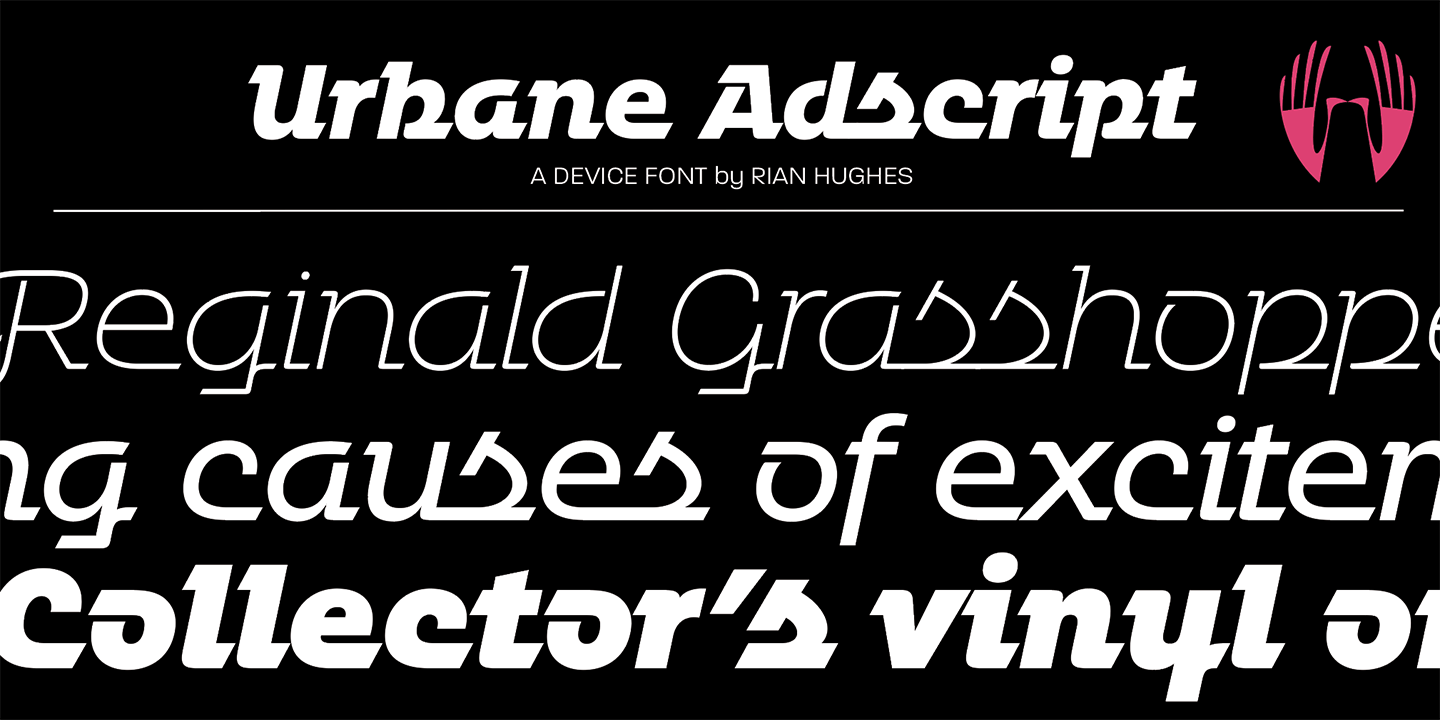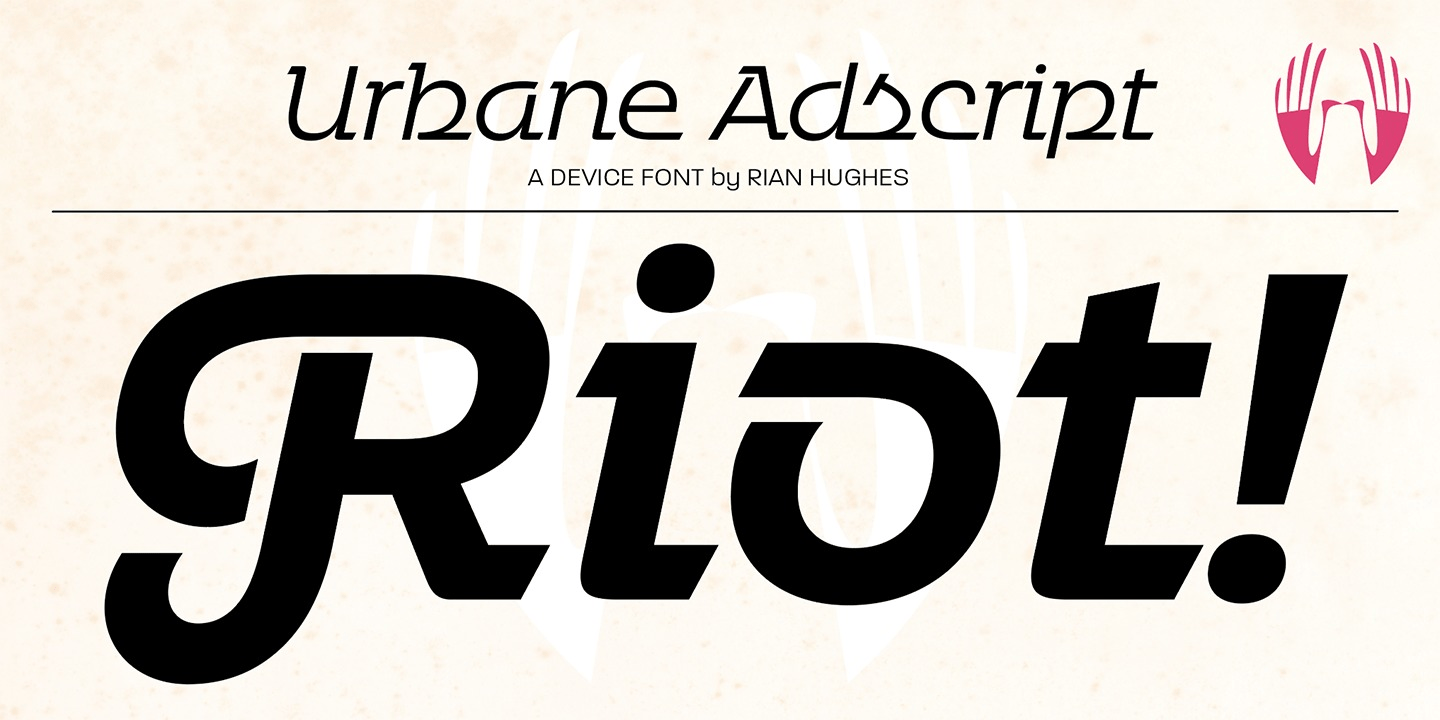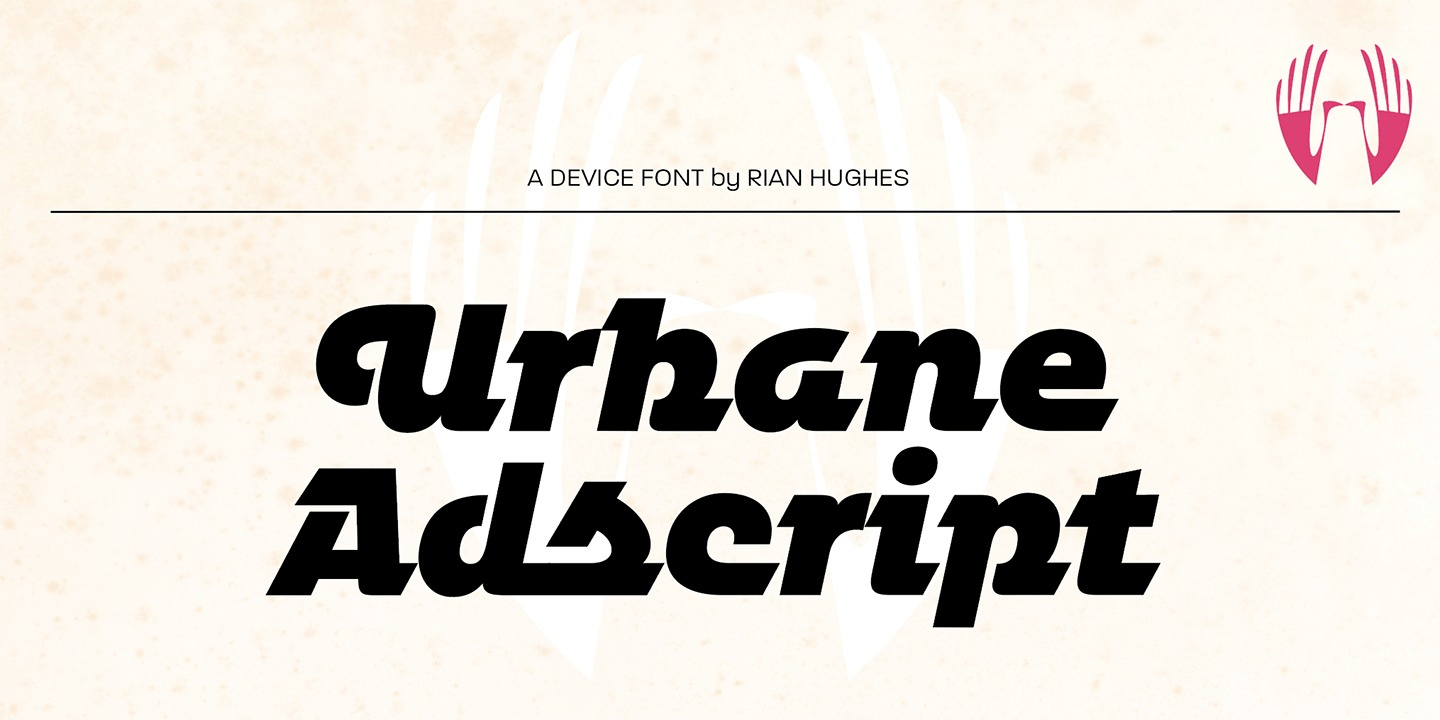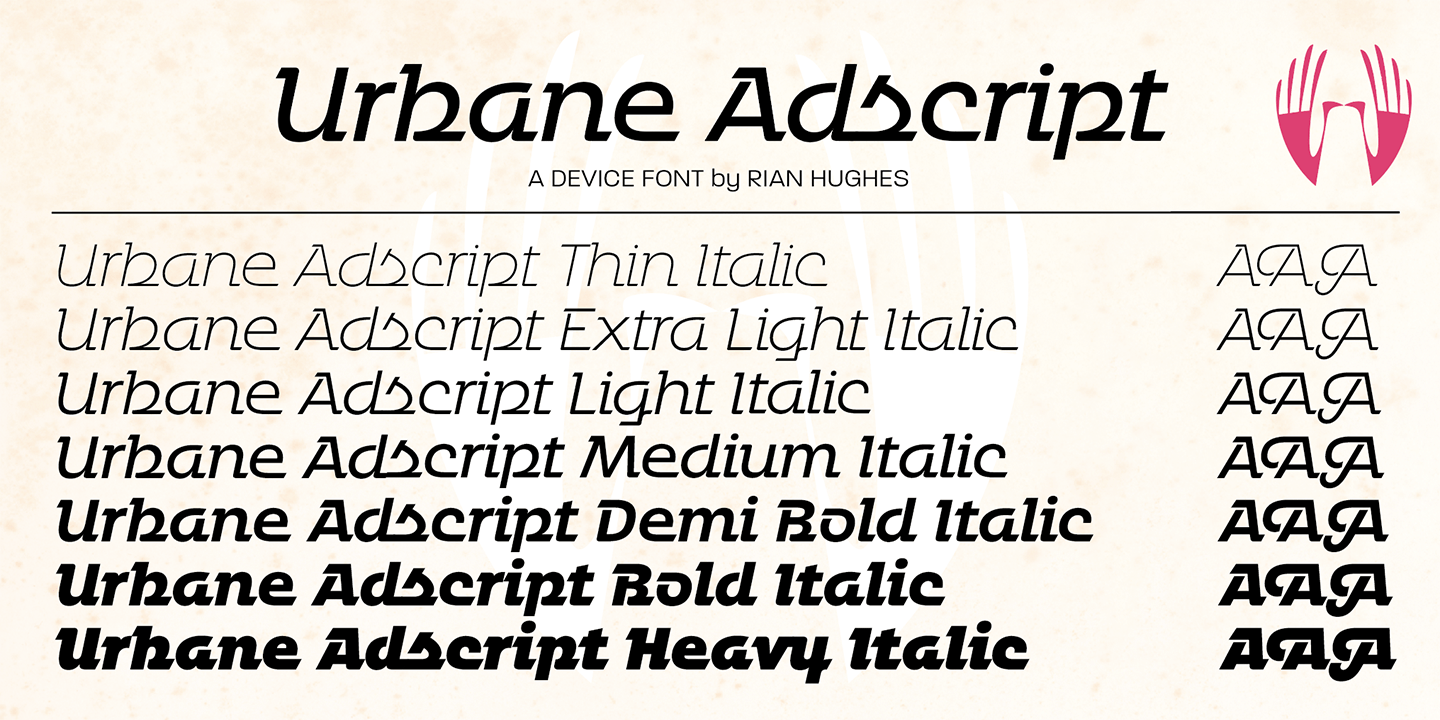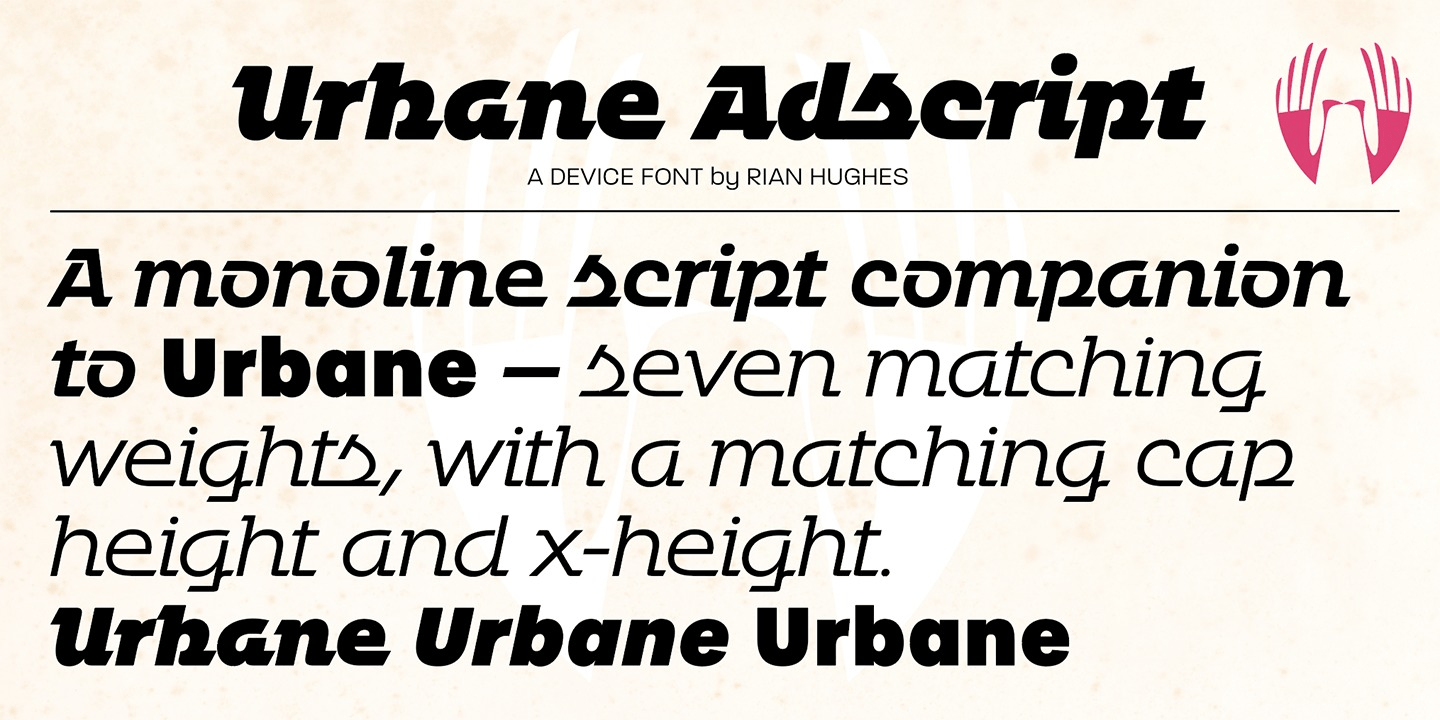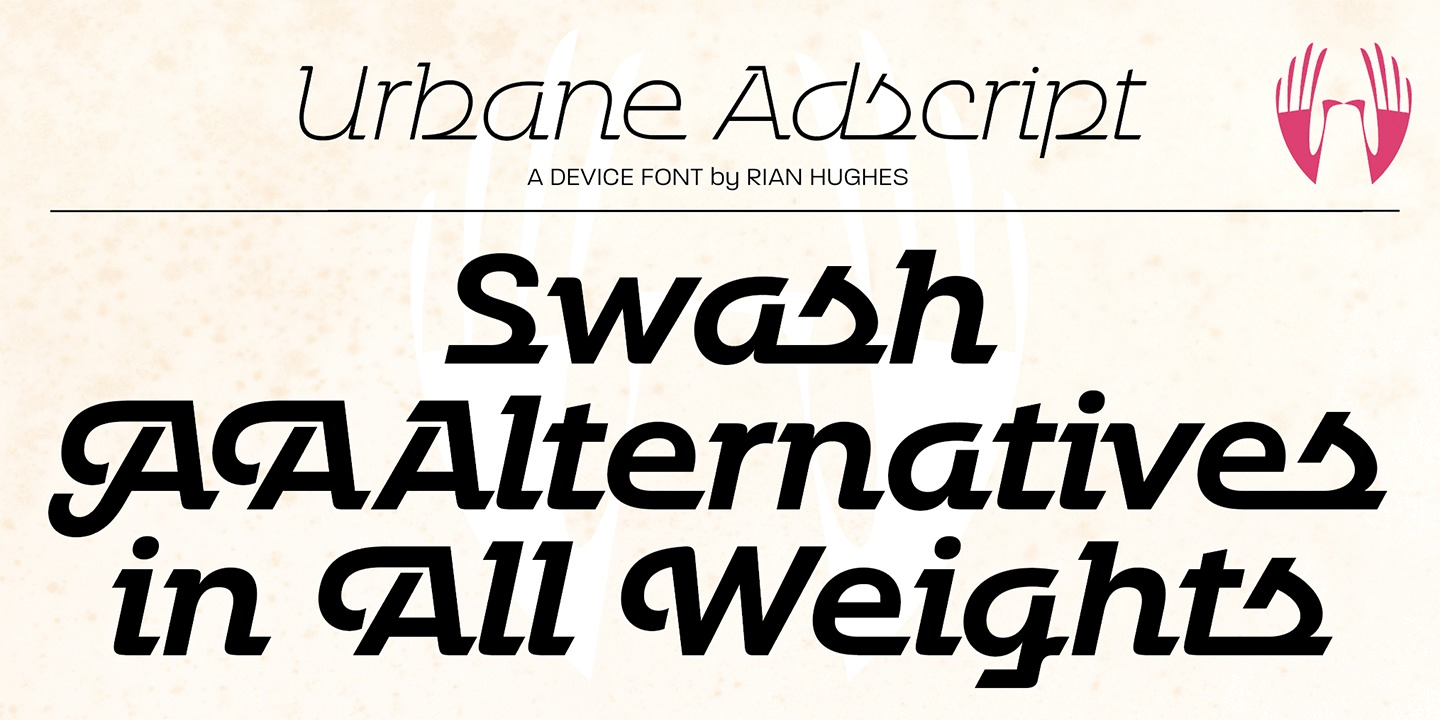
Urbane Adscript
Urbane Adscript is a script companion to Urbane. A monoline semi-linking sans, it has the same number of weights and the same cap height and x-height as the Urbane family, meaning the two can be used together harmoniously.
It features swash capitals that can be toggled on or off in the Opentype panel, or chosen individually from the Glyphs menu according to taste. Almost every capital has a swash alternate, and many have two.
In Adobe Illustrator, the more decorative swash can be found under 'swash?, the less decorative as an alternate.
Also includes lining, tabular and old-style numerals.